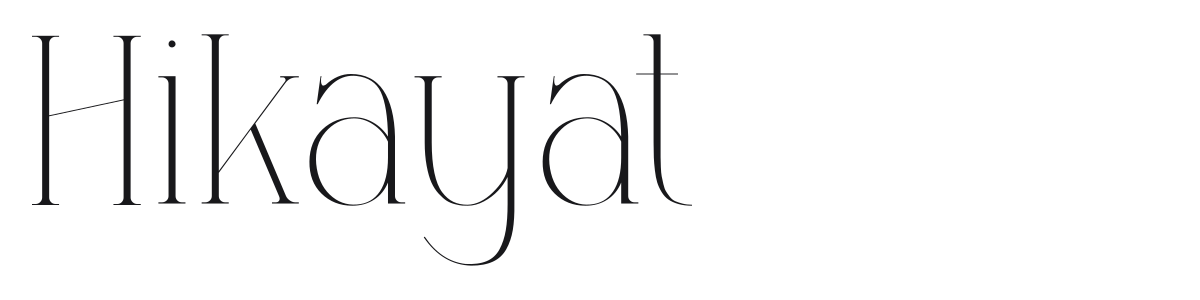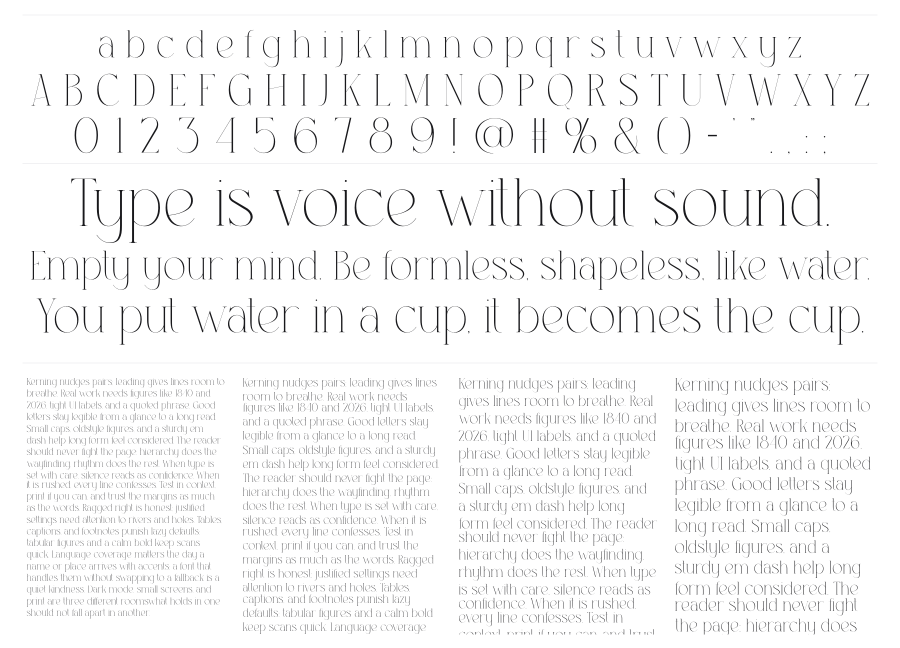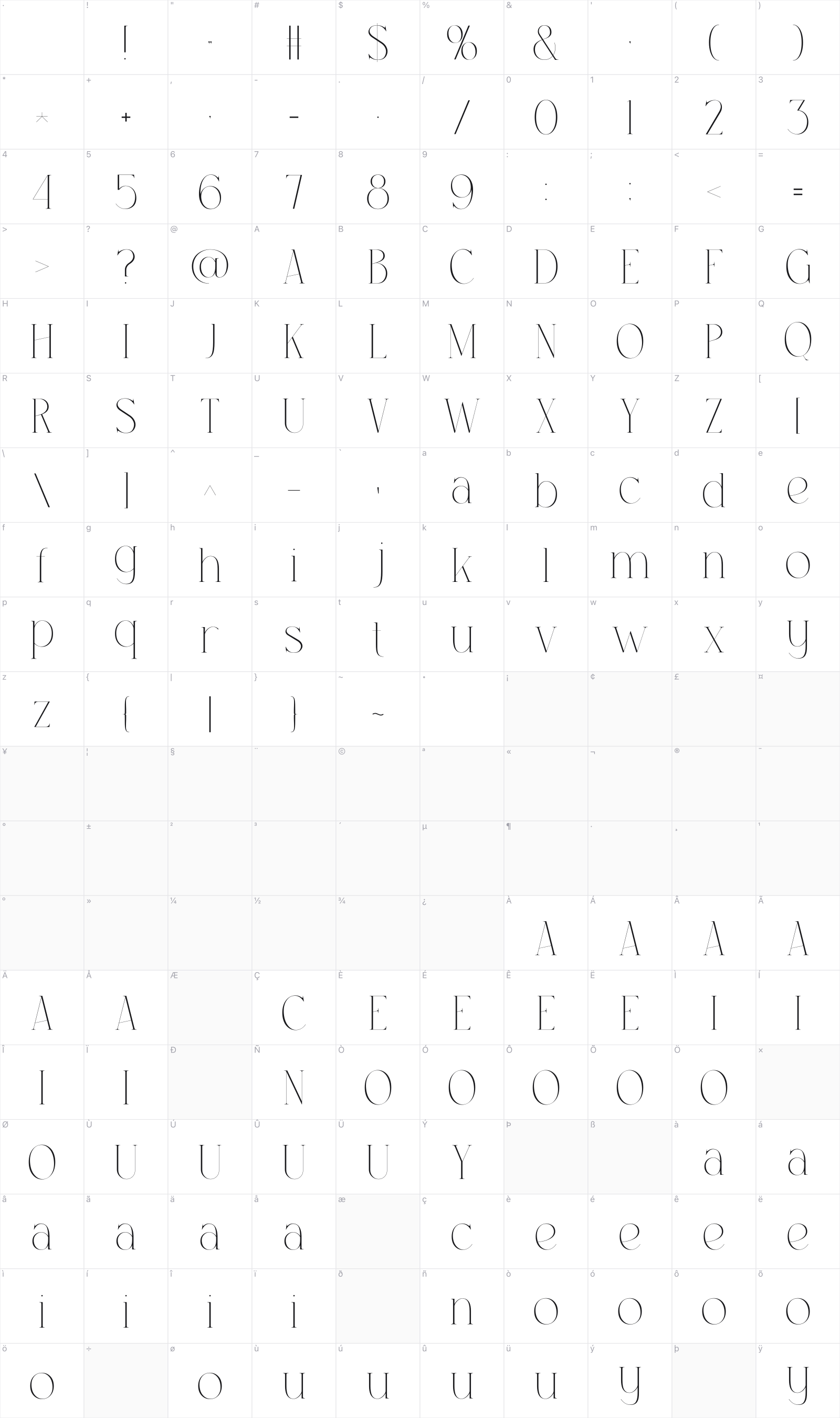
Hikayat
by Tokopress
Hikayat is an ultra-thin modern serif with extreme stroke contrast and barely-there hairlines that give it a skeletal, high-fashion elegance. Rooted in Didone tradition, it pushes the weight to its thinnest possible extreme, making every character feel almost drawn in air. Best used large, where the contrast between its ghost-thin horizontals and delicate verticals can be properly appreciated.